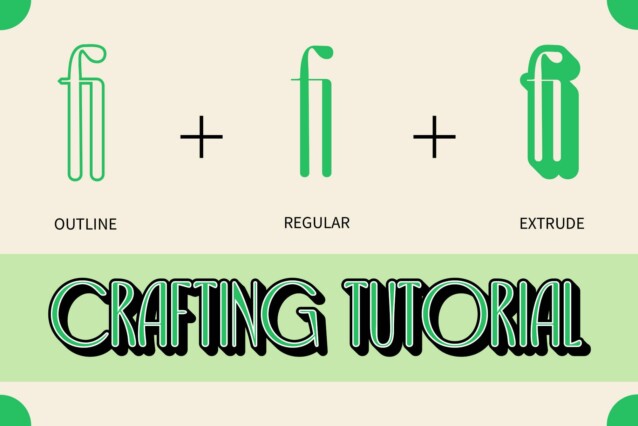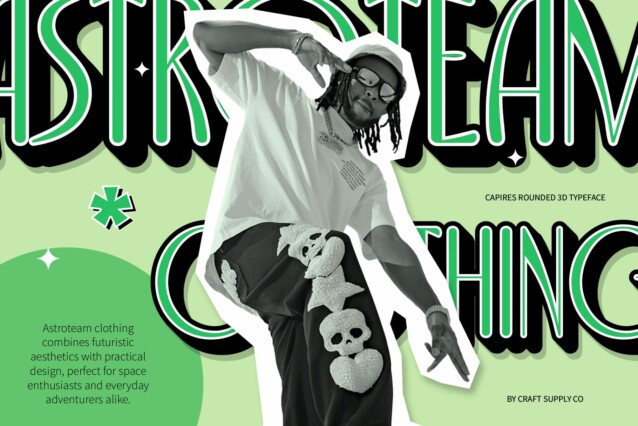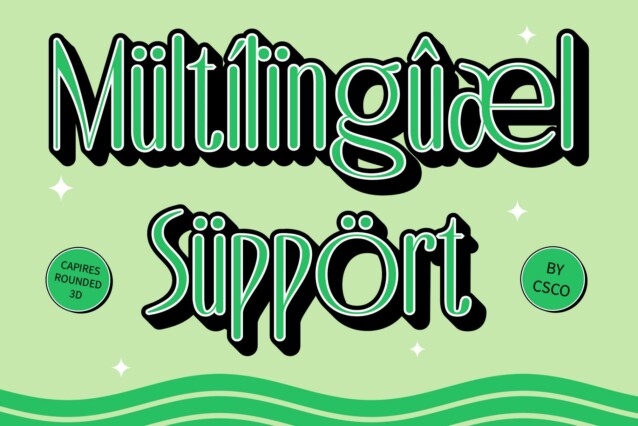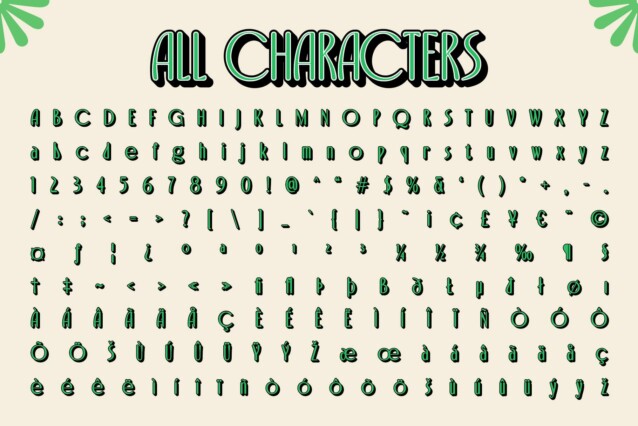
Capires Rounded 3D Font
Capires Rounded 3D Font is a modern sans-serif font that artfully combines Art Deco design elements with soft, rounded shapes. This unique blend provides an elegant touch while maintaining a contemporary vibe. The clean lines and balanced proportions create a striking visual appeal that captivates the viewer’s attention, making it an excellent choice for designs that require a sophisticated yet modern aesthetic.